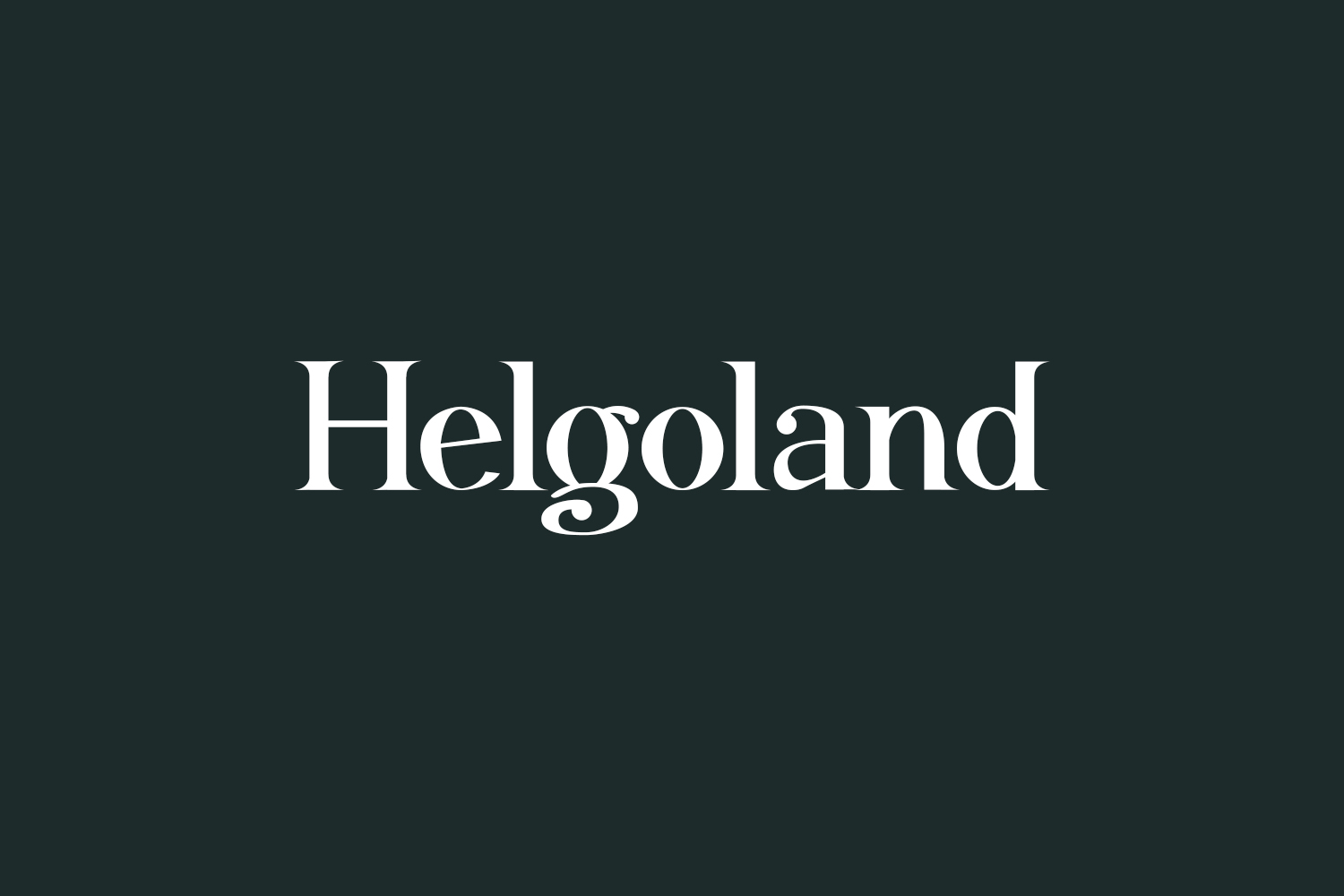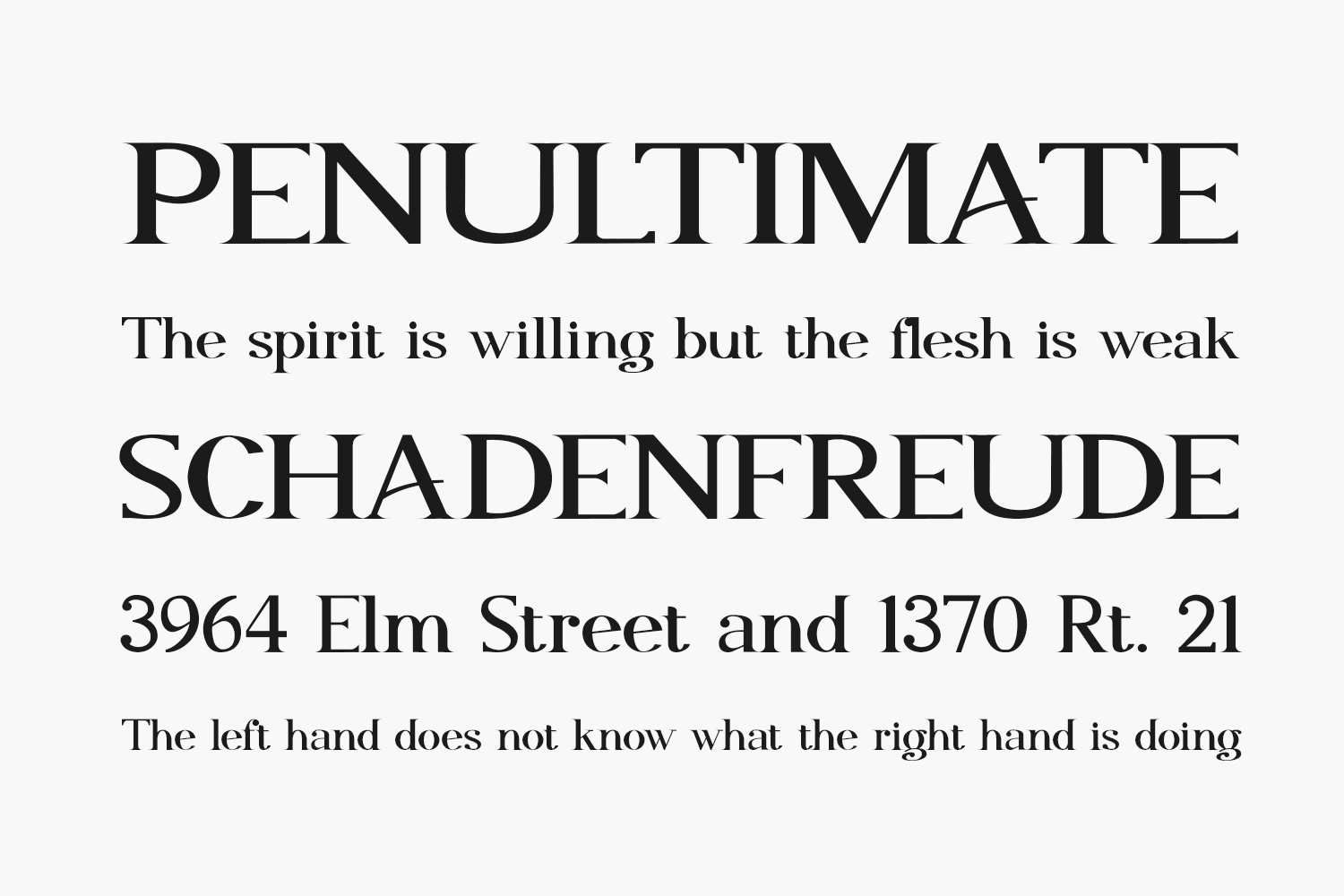
Helgoland Free Font is a typographic delight that seamlessly blends the classic elegance of serif fonts with a touch of modernity. Its unique personality is a result of the careful balance between its sharp, edgy serifs and its sleek, streamlined lines, making it a perfect choice for anyone looking to add a touch of sophistication to their design. With its wide range of weights and styles, Serif Helgoland Free Font is versatile enough to fit any project, whether it’s a vintage-inspired poster or a contemporary website. Its timeless charm will captivate and enchant anyone who lays eyes on it, leaving a lasting impression that is both striking and unforgettable.